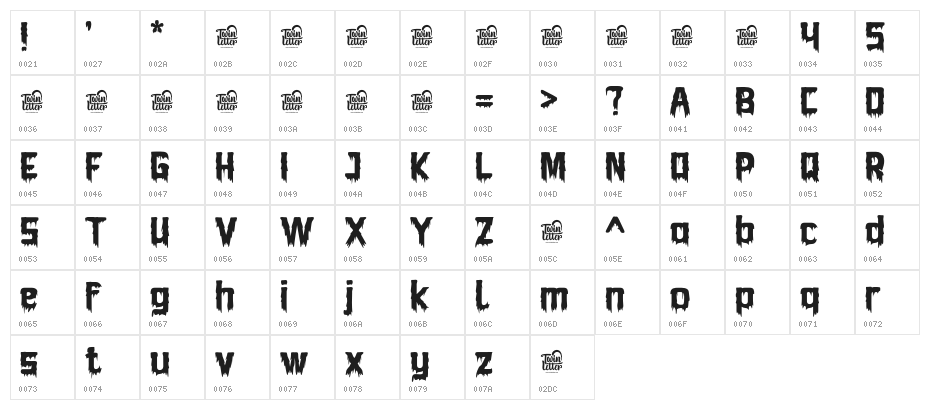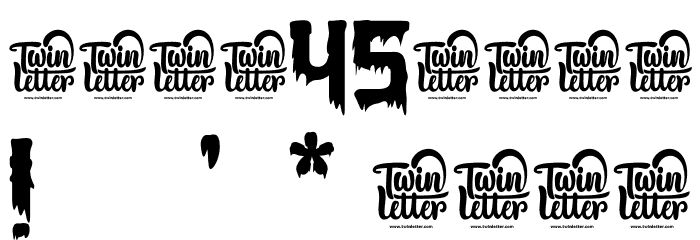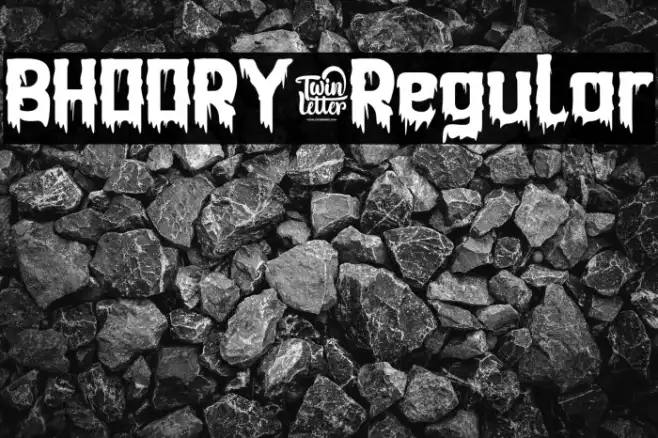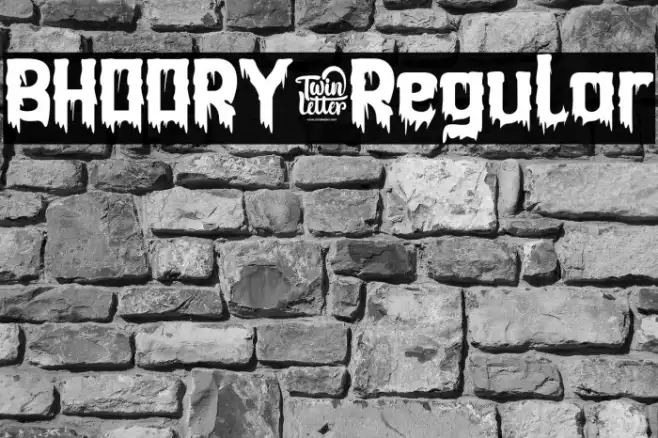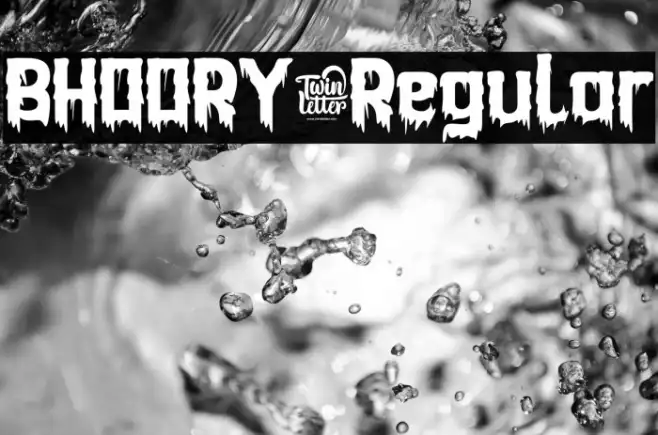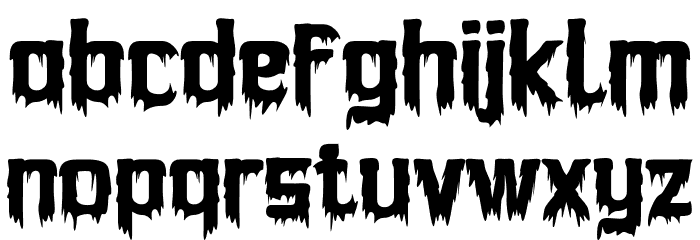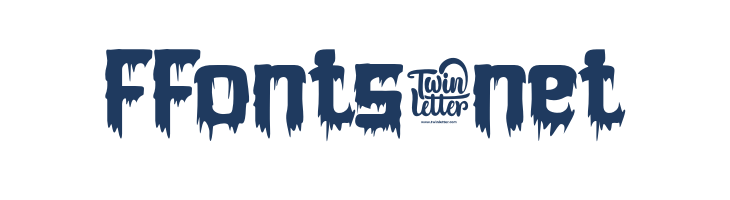
BHOORY-Regular Font
BHOORY-Regular Description
This font features a unique, dripping effect that gives it a spooky and eerie appearance. The characters are bold and have a jagged, irregular outline that resembles melting or dripping liquid. This style is particularly eye-catching and is reminiscent of horror or Halloween themes. The uppercase and lowercase letters maintain a consistent design, with each character appearing as if it is slowly melting. The numbers and special characters follow the same dripping motif, ensuring a cohesive look across all glyphs. The font's distinct style makes it ideal for creating a dramatic and unsettling atmosphere in design projects.